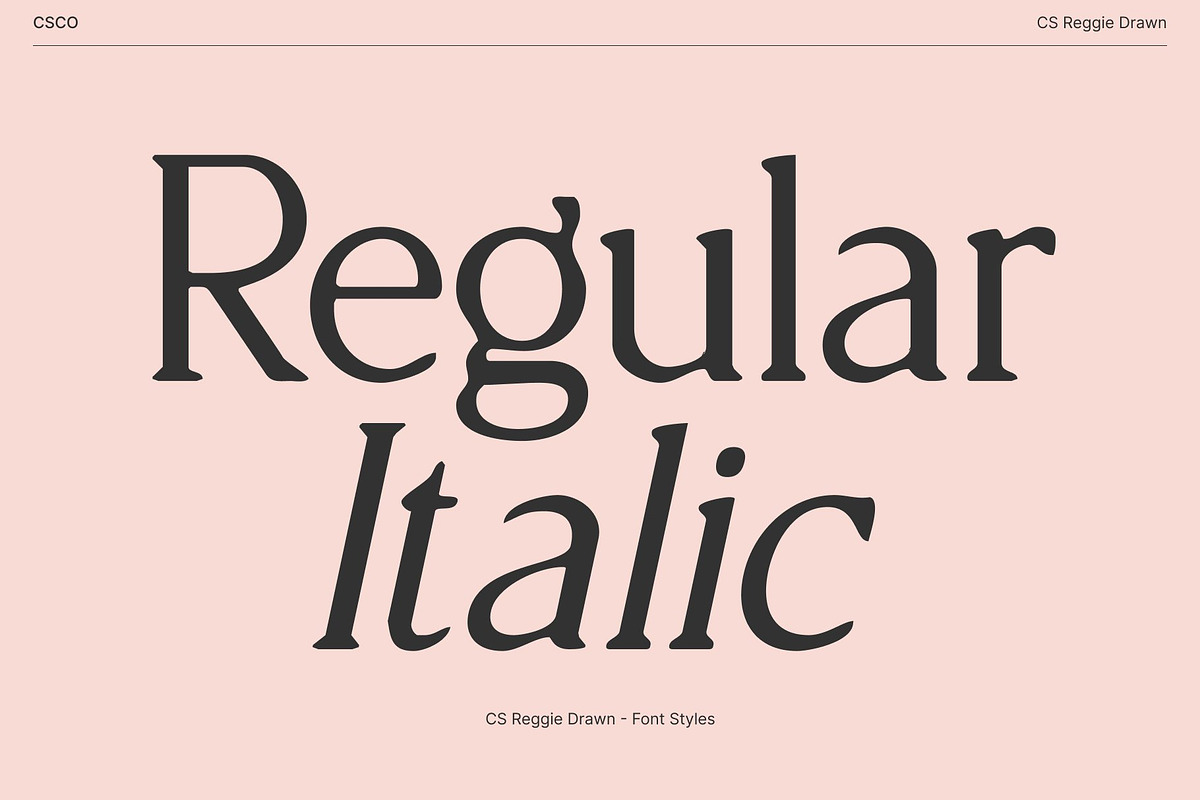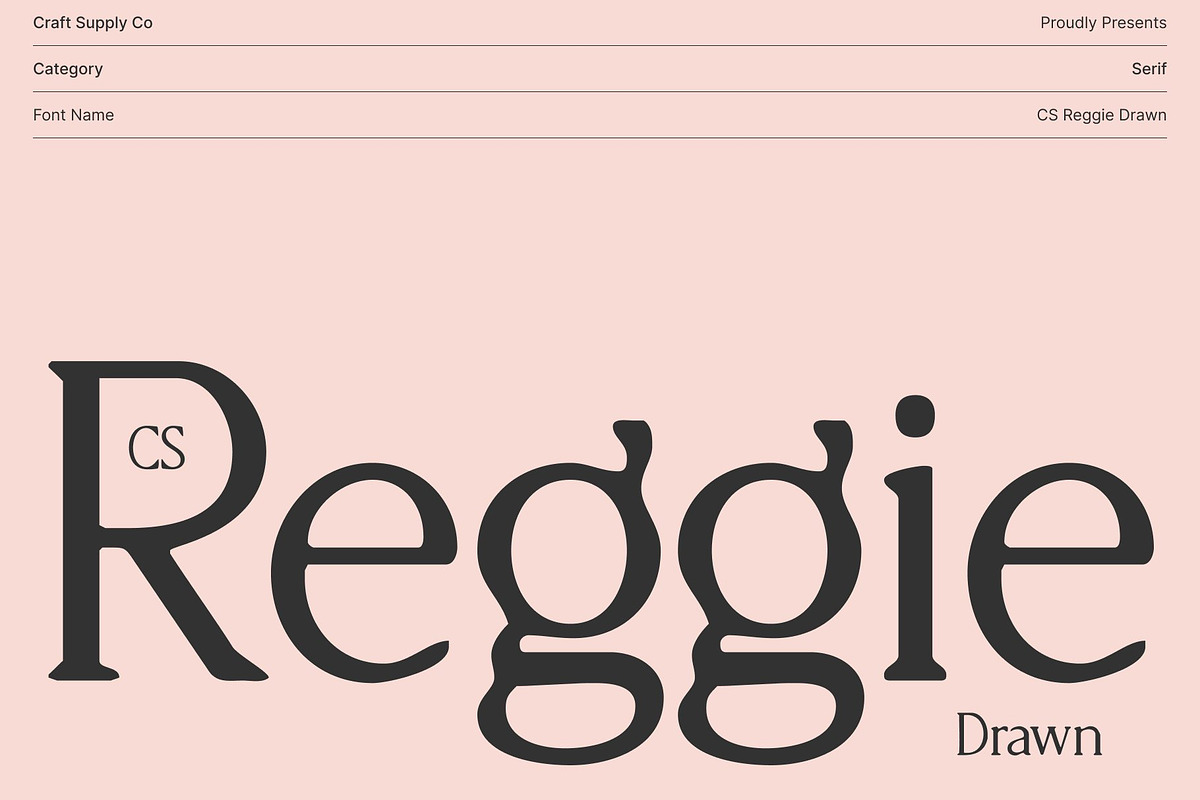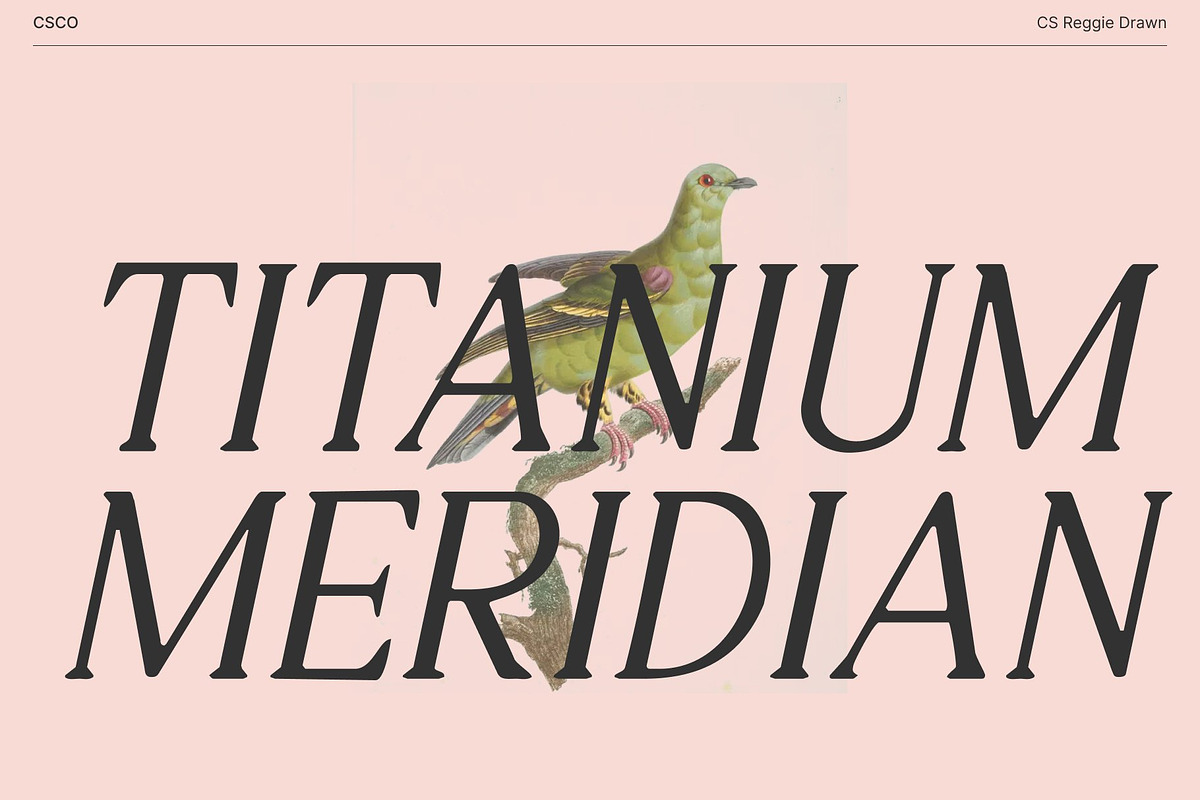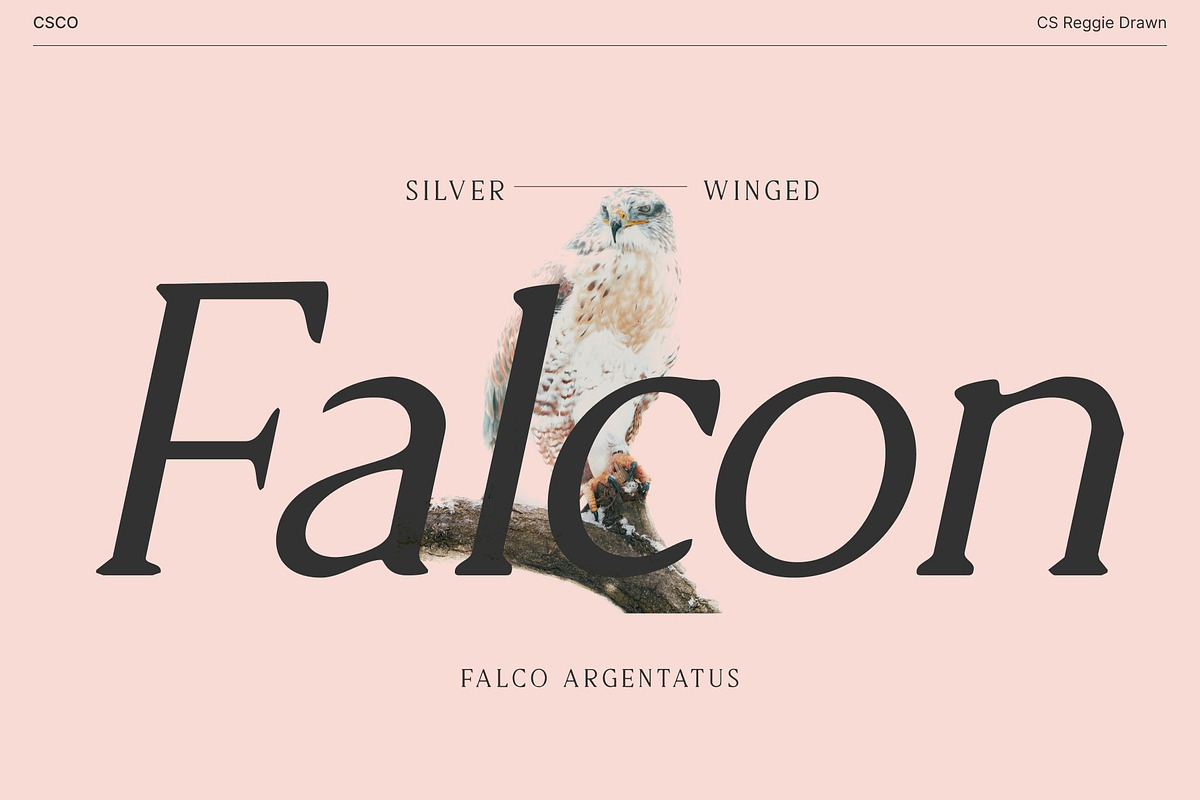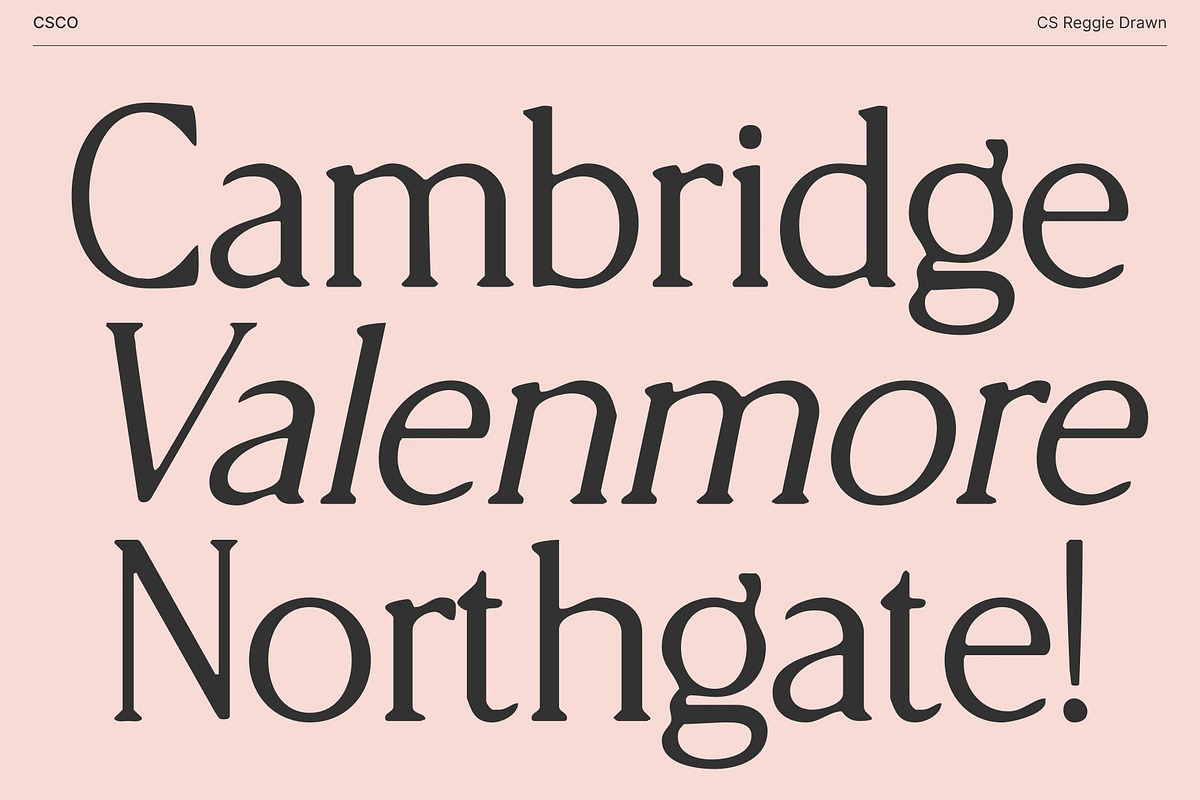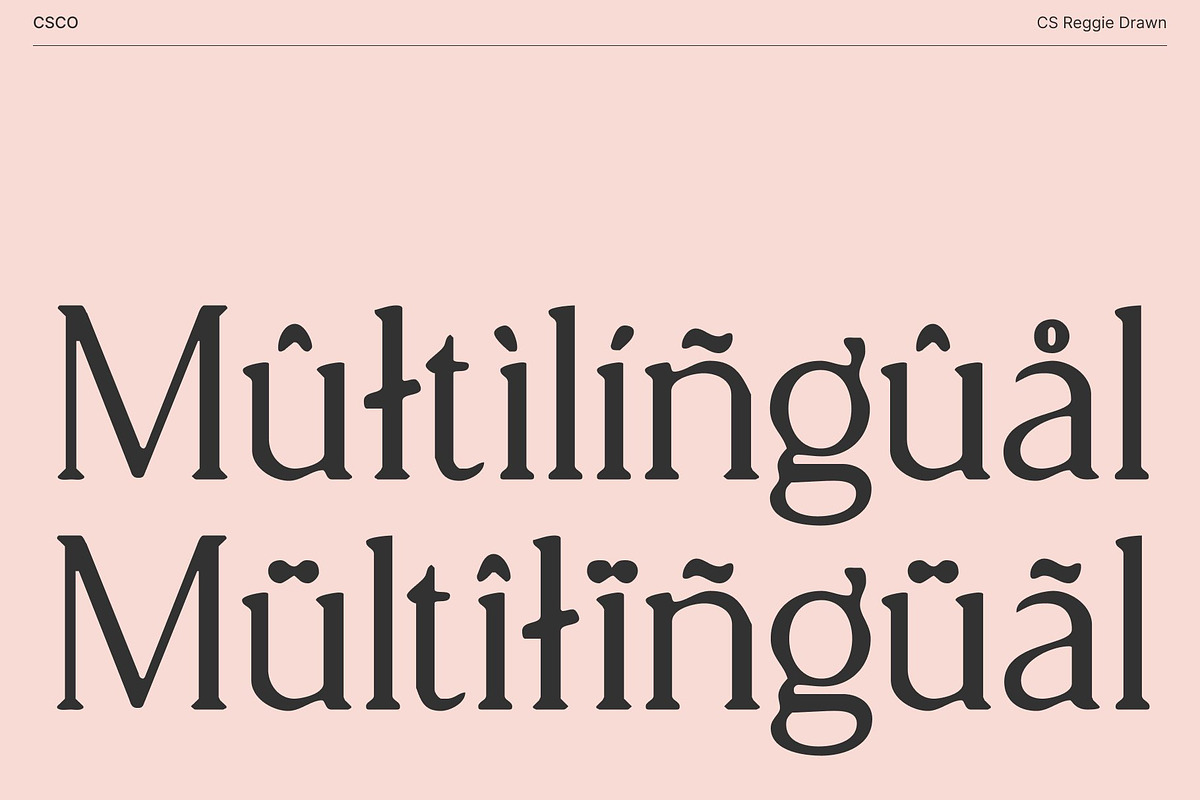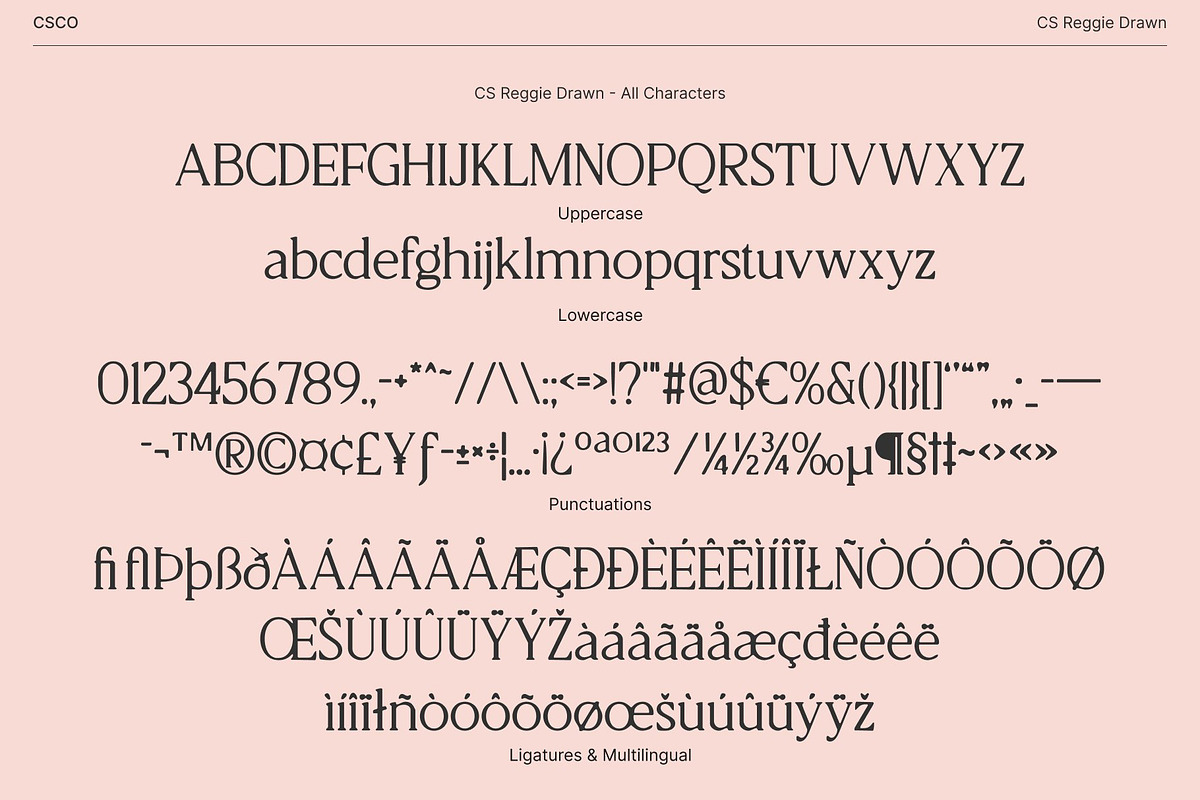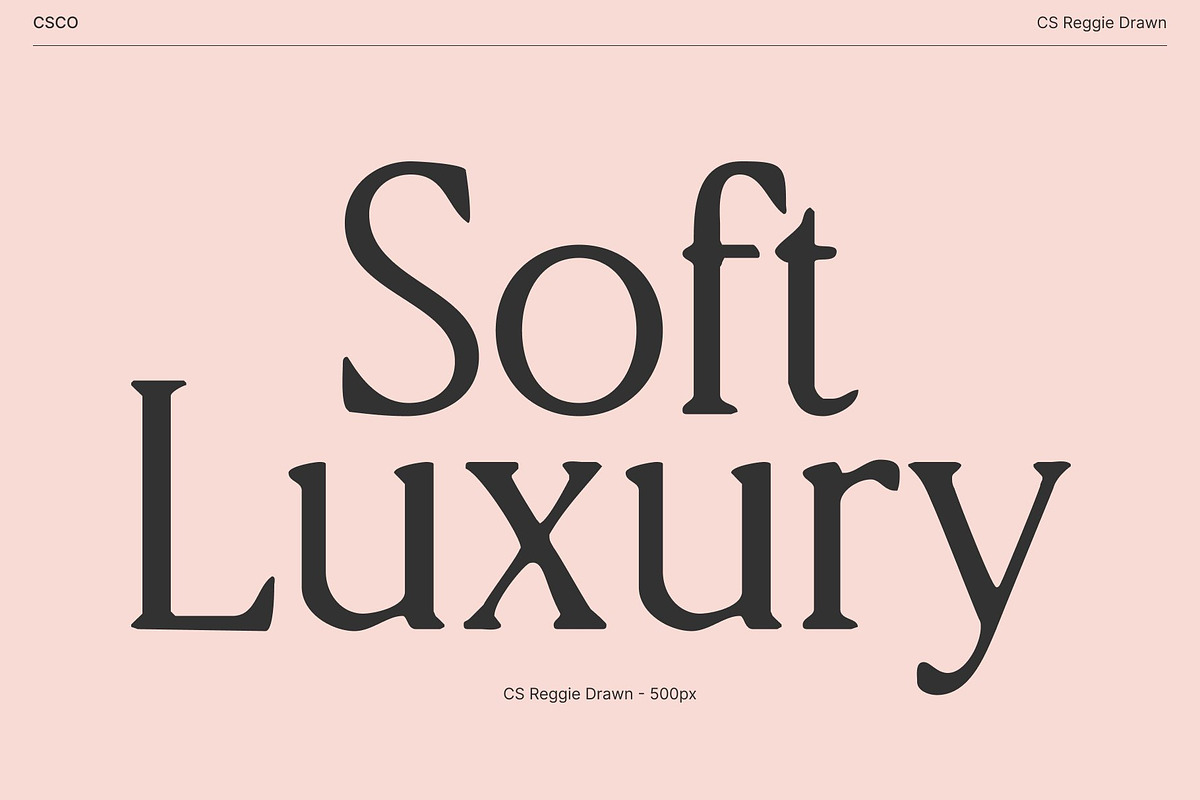
CS Reggie Drawn
CS Reggie Drawn – Minimalist Elegance with Modern Sophistication
Elegant Serif with Refined, Hand-Drawn Simplicity This is an elegant serif font defined by graceful curves, balanced proportions, and a subtle hand-drawn finish. Its minimalist construction conveys calm sophistication, while the drawn texture introduces warmth and human character. Each letterform feels poised and intentional, creating a luxurious visual presence with a contemporary sensibility.
Minimalist Design with Soft Artistic Nuance Built on clean lines and understated serif details, this font embraces modern minimalism while avoiding cold rigidity. The gentle drawn effect adds organic softness, enhancing visual interest without overwhelming clarity. The result is a typeface that feels polished, expressive, and effortlessly refined across both print and digital applications.
Perfect for Luxury Branding and Editorial Design Designed to elevate premium visuals, this font excels in luxury branding, editorial layouts, and sophisticated visual identities. It is ideal for fashion magazines, upscale packaging, corporate branding, and elegant marketing materials where precision, beauty, and subtle personality matter.
Timeless Clarity with Contemporary Class Blending clarity with class, this font delivers a refined typographic voice that stands out through restraint. Whether used in logos, headlines, or editorial compositions, this font communicates professionalism, confidence, and modern elegance with enduring appeal.